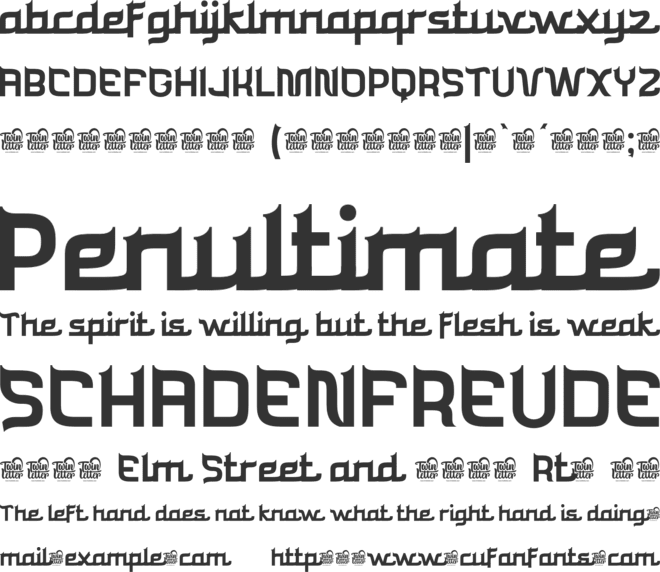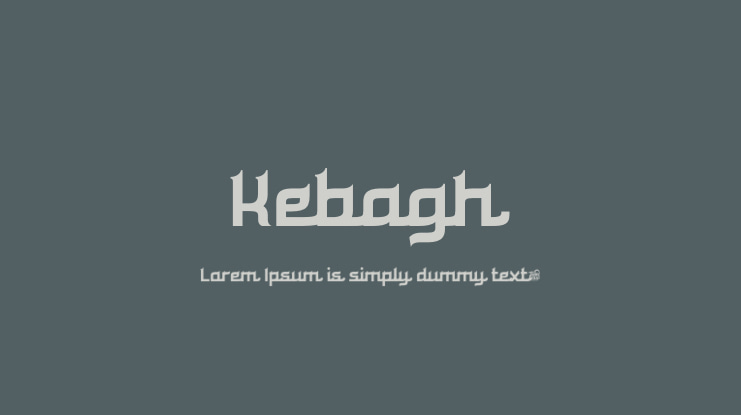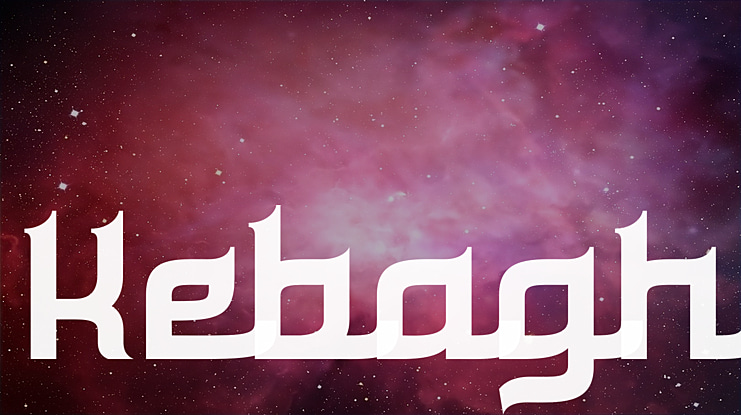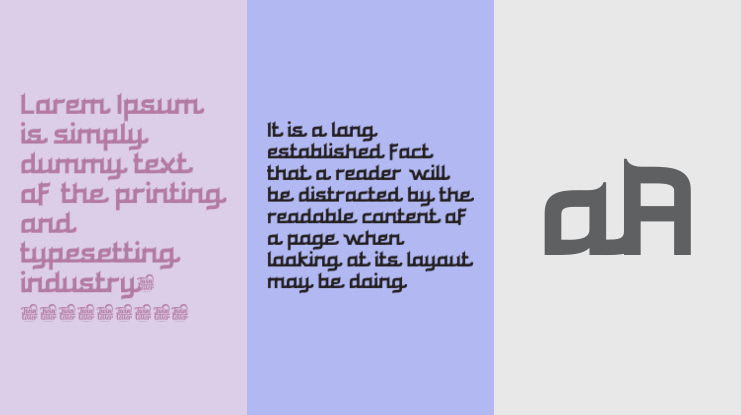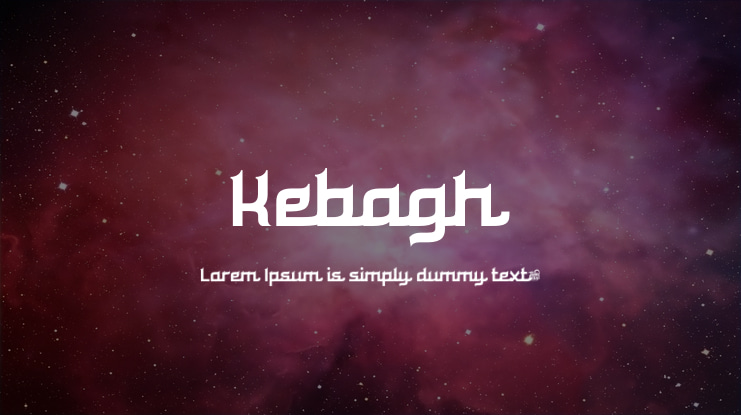
Kebagh Font
Introducing Arabic font in the regular and bound style named Kebagh. Our display fonts are perfect for your various projects, magazine covers, packaging, and many other design projects. You’ll find designs ranging from traditional to modern with a variety of different styles in between. Check out our collection and start creating amazing projects with this font!